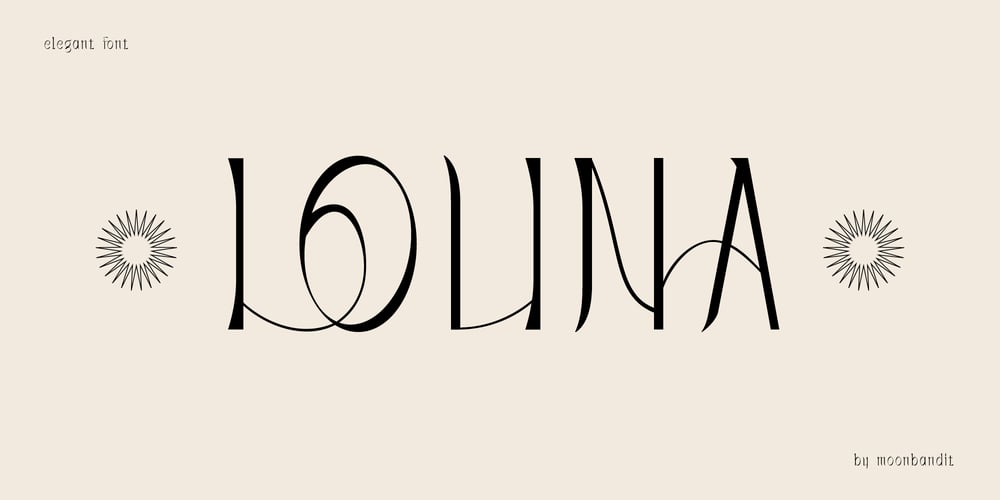
MBF Louna
MBF Louna font
MBF Louna Font Family was designed by Bramaji Dipa Manggala and published by Moonbandit. MBF Louna contains 1 styles and family package options. Louna is an elegant, multi purpose serif font. This typeface is perfect for projects with a beauty, elegant, expensive theme, Louna also has many discretionary ligatures to enhance the prestige feel in your project. You can use Louna for display, logo, headline, titling, and even text.